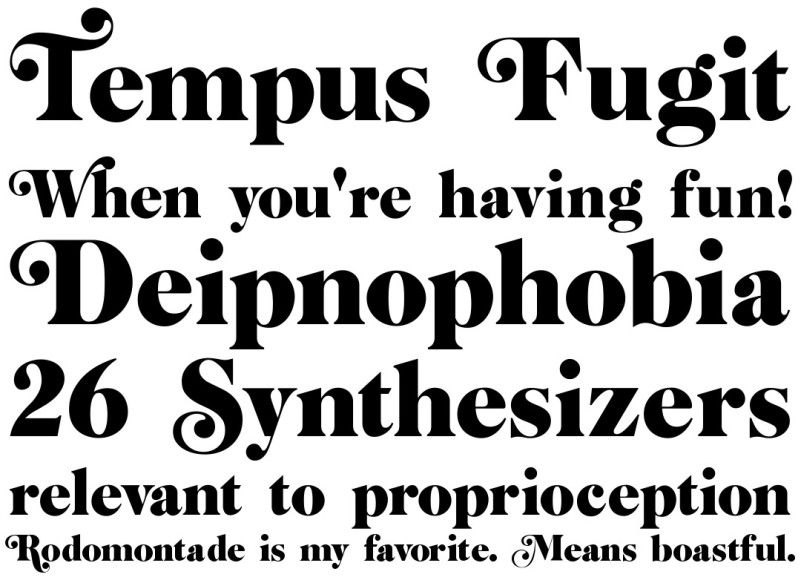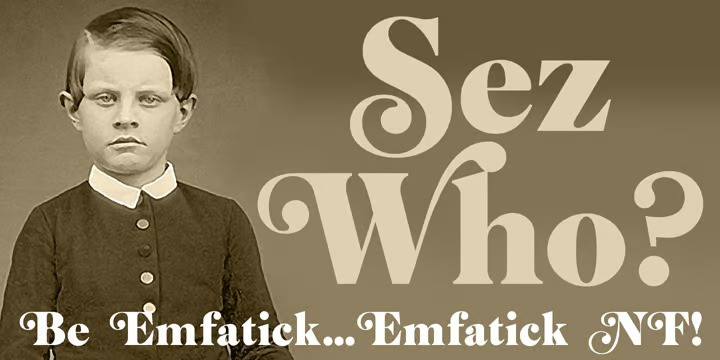
Emfatick NF Font
Hello Everyone, introduce our new product Emfatick NF Serif Font Family. Here’s a fresh take on a classic, Caslon Black Swash by Ed Benguiat. Big, bold and beautiful, it’s a natural choice for distinctive and attractive headlines. Several alternate lowercase characters are included in the font, in place of some math operators. The PC Postscript, Truetype and Opentype versions contain the complete Latin language character set (Unicode 1252) plus support for Central European (Unicode 1250) languages as well.